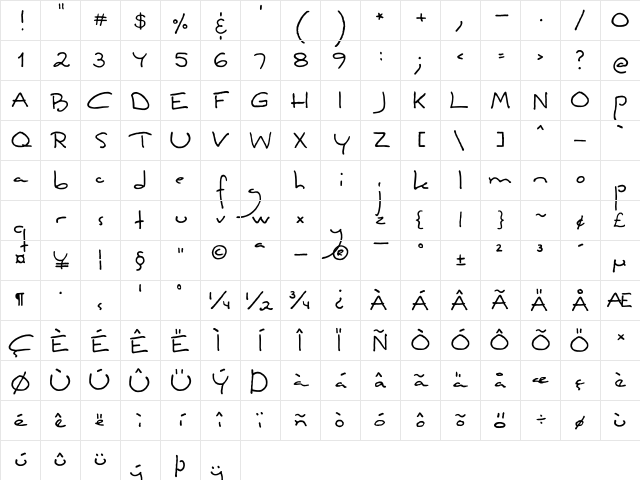
Complete FG Ellinor Regular glyph index. Displaying only characters natively supported by FG Ellinor Regular font.
FG Ellinor is a composed and adaptable typeface that performs quietly and consistently across a wide range of design contexts.